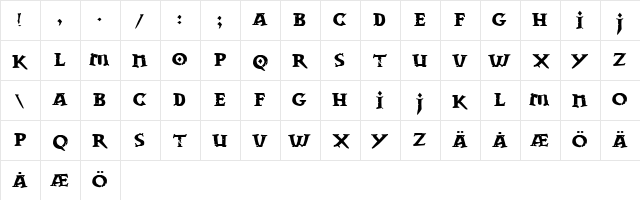
Dwarven Stonecraft Roughly Carved
Design Context for Dwarven Stonecraft Typeface
Dwarven Stonecraft trades polish for personality, using distressed and eroded forms to bring grit and attitude to creative work.
A strong fit for alternative music projects, graffiti-adjacent design, and anything that deliberately resists polish.
Pro Tip: Use Dwarven Stonecraft at larger sizes where the texture and irregularity of each letterform can be clearly seen — it loses its character at small sizes.